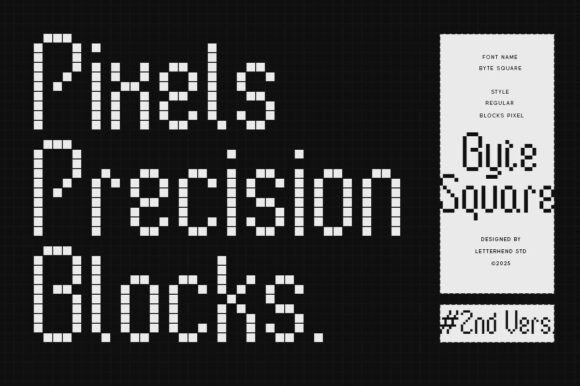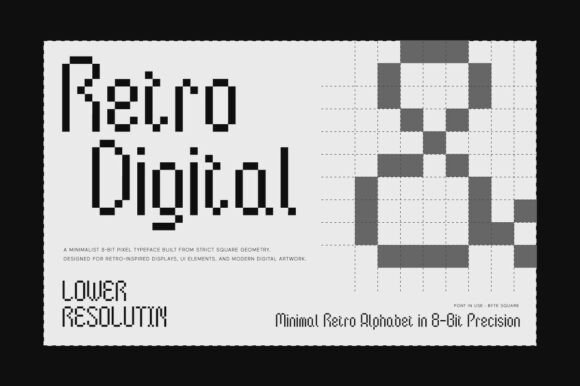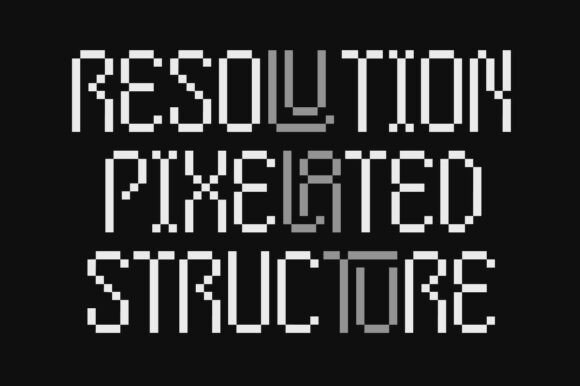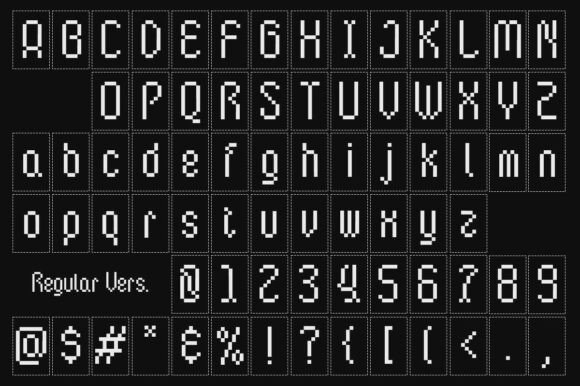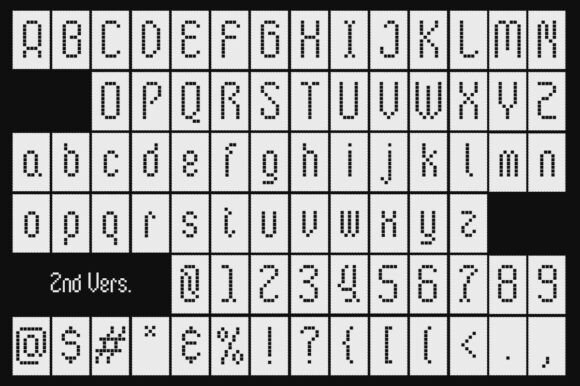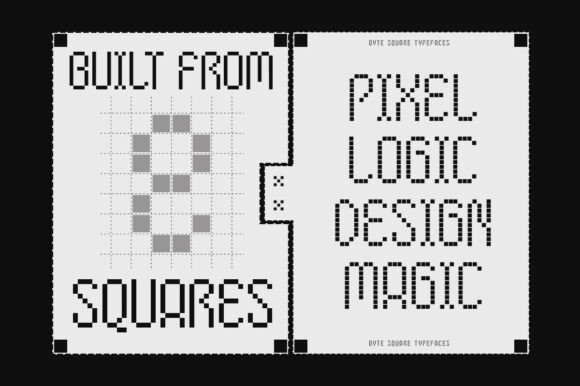
Byte Square Font: A Cutting-Edge Pixel Typeface for Modern Tech and Gaming Projects
In the realm of digital design, typography plays a crucial role in conveying the aesthetic and tone of a project. For those seeking a font that embodies the essence of digital minimalism, Byte Square is an exceptional choice. This pixel typeface is meticulously crafted with a precise grid-based construction and pixel-block letterforms, reminiscent of classic 8-bit displays and early computer typography.
The Essence of Digital Minimalism
Byte Square captures the spirit of digital minimalism, a design philosophy that emphasizes simplicity, clean lines, and a limited color palette. This font’s distinctive, monospaced construction is entirely composed of uniform blocks, yielding a crisp, grid-based aesthetic that instantly evokes memories of classic 8-bit games and early computing displays.
The inherent simplicity and geometric structure of the Byte Square typeface provide a unique, instantly recognizable style that is perfectly suited for various applications, including app interfaces, large-scale event displays, and innovative digital branding that requires a nostalgic yet sleek feel.
A Perfect Choice for Modern Tech and Gaming Projects
Byte Square is an ideal font for modern tech and gaming projects, offering a retro-futuristic form that is both nostalgic and cutting-edge. Its precision and minimal form make it an excellent choice for designers and crafters seeking to create a visually striking and cohesive brand identity.
Whether you’re designing a mobile app, a video game, or a digital product, Byte Square’s distinctive style is sure to leave a lasting impression. Its versatility and legibility at various resolutions ensure that it remains effective across different platforms and devices.
Key Features of Byte Square Font
- Precise grid-based construction: Byte Square’s meticulous construction ensures a clean and precise aesthetic.
- Pixel-block letterforms: The font’s pixel-block letterforms evoke classic 8-bit displays and early computer typography.
- Monospaced design: Byte Square’s monospaced design provides a uniform and cohesive look.
- Retro-futuristic style: The font’s retro-futuristic style is both nostalgic and cutting-edge.
- Legible at various resolutions: Byte Square remains effective across different platforms and devices.
Design Inspiration and Applications
Byte Square’s design inspiration stems from the early days of computing and 8-bit games. Its unique style is perfect for designers and crafters seeking to create a distinctive brand identity that pays homage to the past while embracing modern design principles.
The font’s applications are diverse, ranging from:
- App interfaces: Byte Square’s clean and precise aesthetic makes it an excellent choice for mobile app design.
- Large-scale event displays: The font’s bold and geometric structure ensures it remains legible even at large sizes.
- Digital branding: Byte Square’s unique style is perfect for creating a cohesive brand identity that requires a nostalgic yet sleek feel.
- Video games: The font’s retro-futuristic style makes it an excellent choice for video game design.
Byte Square is a cutting-edge pixel typeface that distills digital precision into a minimal, clean, and retro-futuristic form. Its unique style, precise grid-based construction, and pixel-block letterforms make it an exceptional choice for modern tech and gaming projects. Designers and crafters seeking to create a visually striking and cohesive brand identity will find Byte Square to be an invaluable asset.
With its versatility, legibility, and distinctive style, Byte Square is poised to become a go-to font for those seeking to capture the essence of digital minimalism and retro-futurism. By incorporating Byte Square into your design projects, you’ll be able to create a lasting impression and establish a strong brand identity that resonates with your audience.